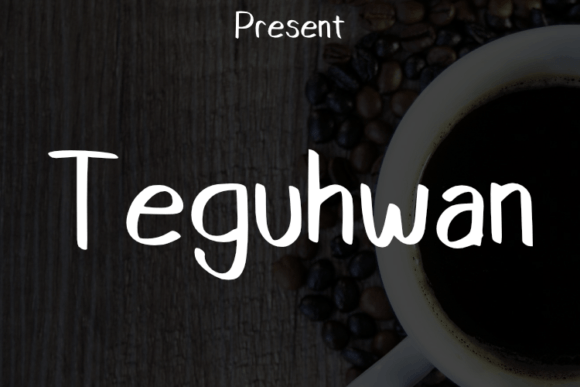
Introducing Teguhwan Font, a stunningly versatile handcrafted typeface that exudes elegance and luxury. This modern script font, meticulously designed by the talented Eric Kusuma, is perfect for adding a touch of sophistication and charm to your creative projects.
With its flowing lines and graceful curves, Teguhwan Font lends itself effortlessly to typography posters, captivating book and movie titles, fashion brands, and more. Imagine your words taking center stage, infused with an artistic flair that captures the attention of every reader.
Whether you're crafting logos that exude timeless charm, designing covers for novels that promise enchanting tales, or creating marketing materials that demand attention, Teguhwan Font is your perfect partner. Its versatility extends to clothing designs, quotes, and any project where elegance and style converge.
Think of your designs blooming into works of art, each letter a brushstroke adding to the overall masterpiece. Teguhwan Font is more than just a font; it's an artistic expression that transforms words into captivating visual experiences.